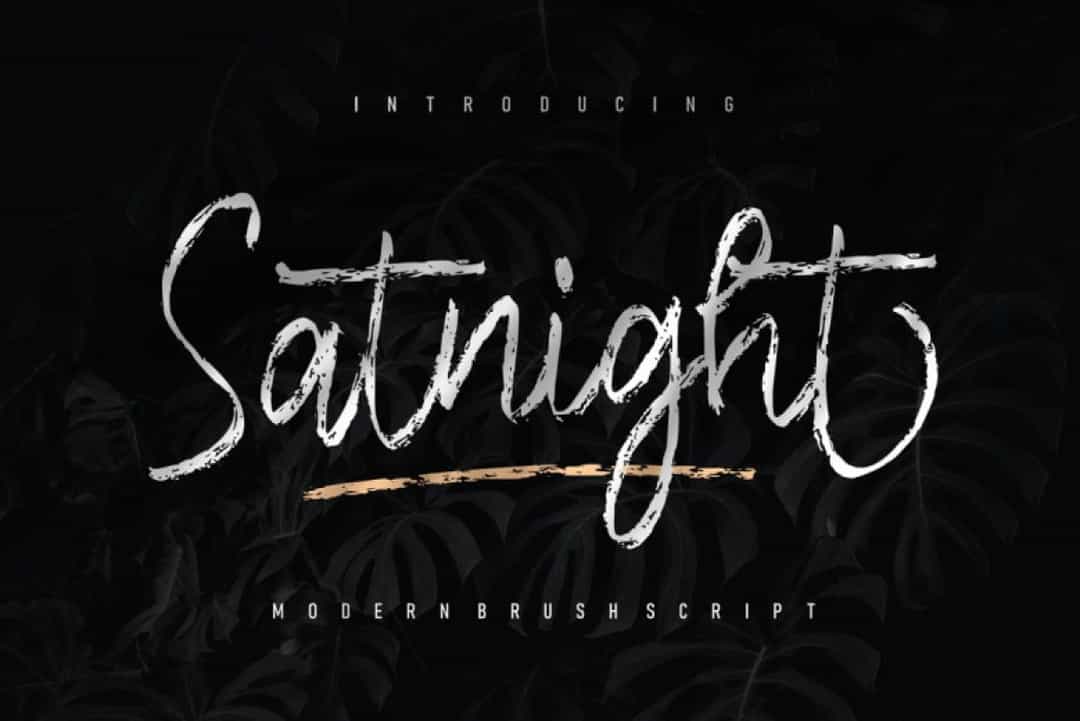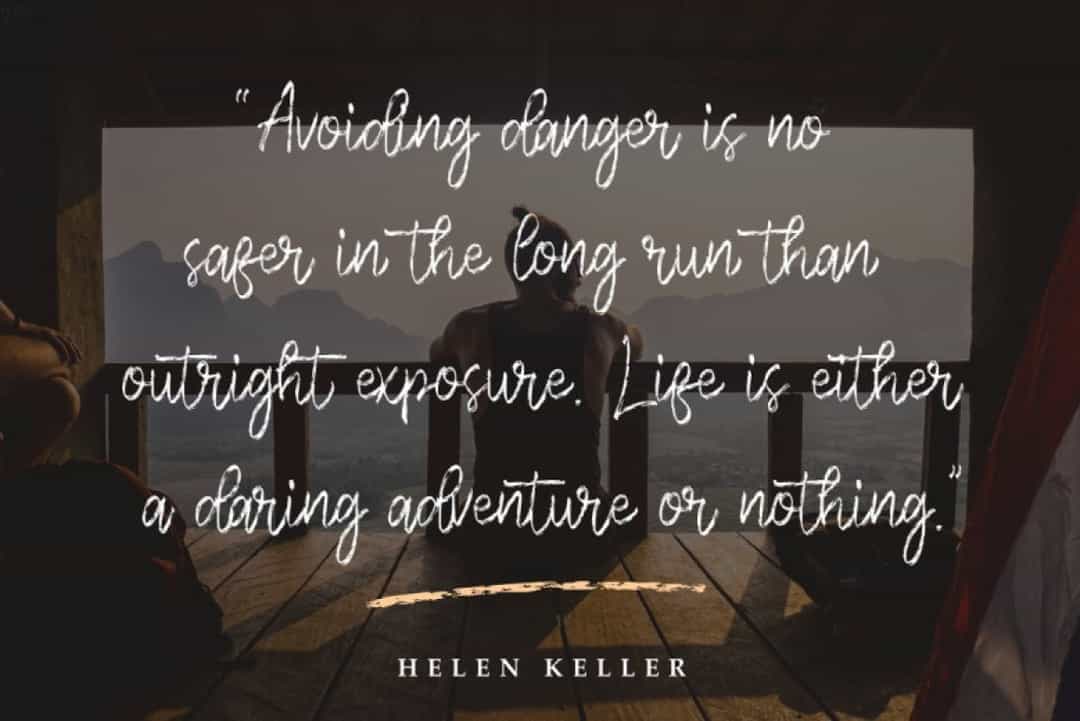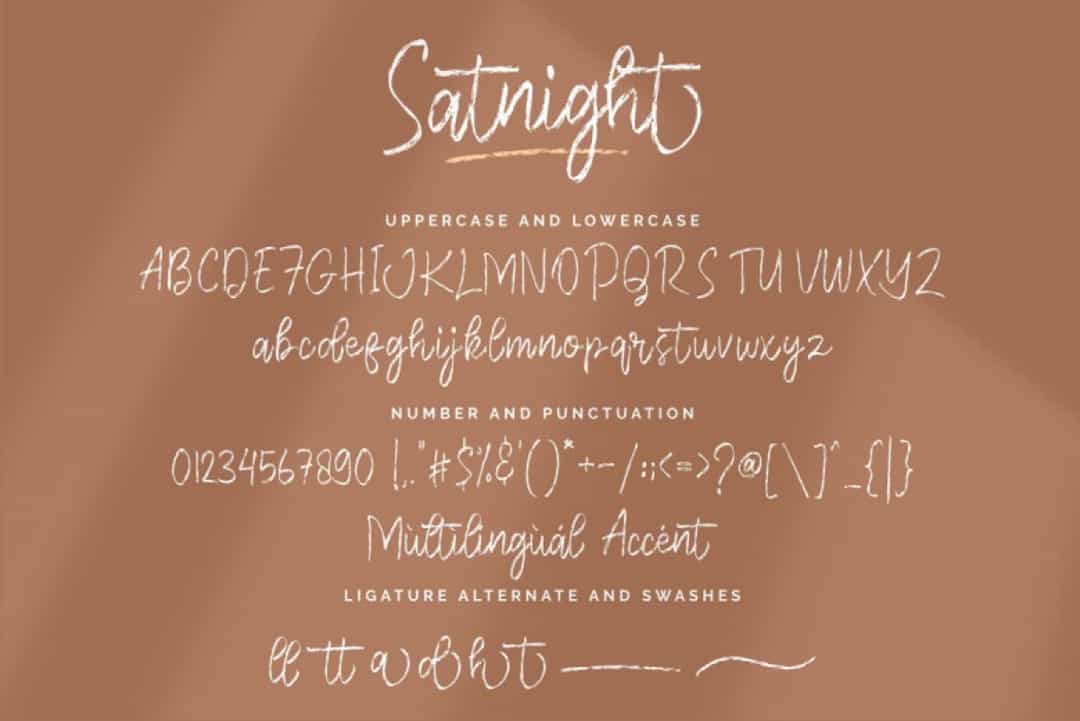
Satnight Font is a simple brush script font with less texture, making it ideal for projects requiring texturally light fonts such as invitations, stationery, logos and social media wedding branding. Satnight can also be combined with various serif fonts to produce exactly the look needed for any task at hand.